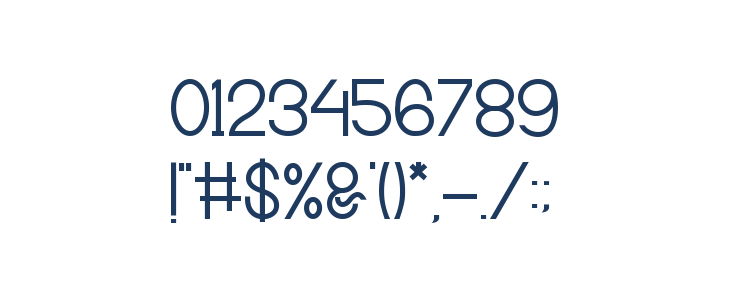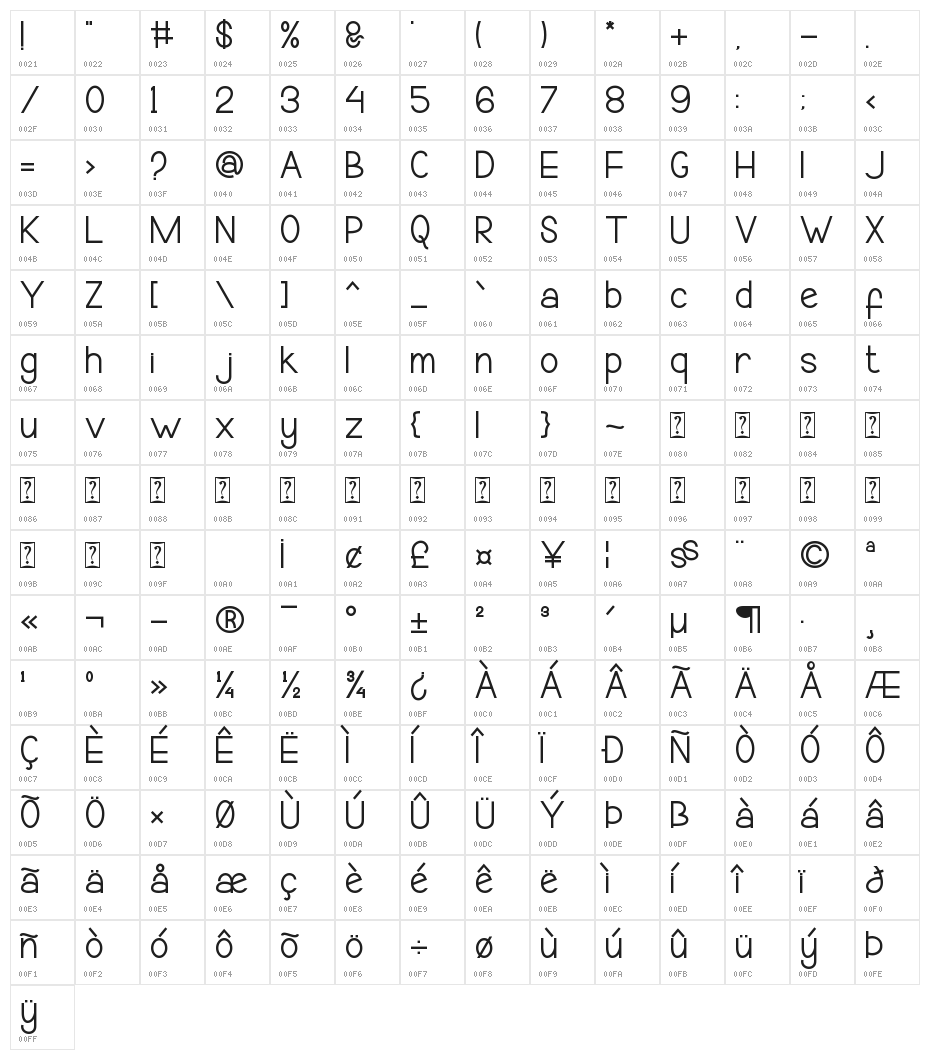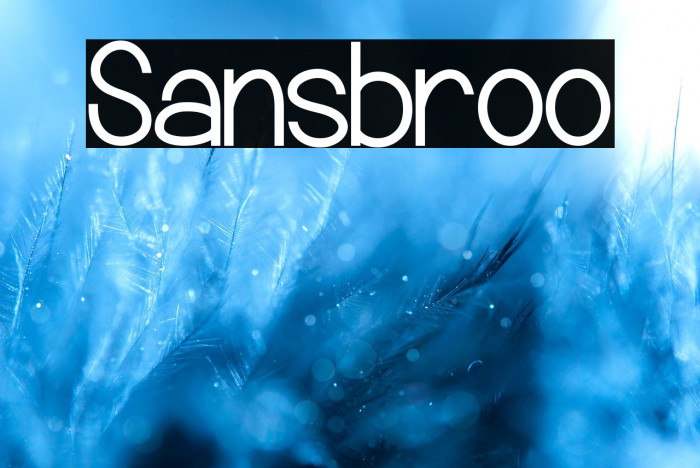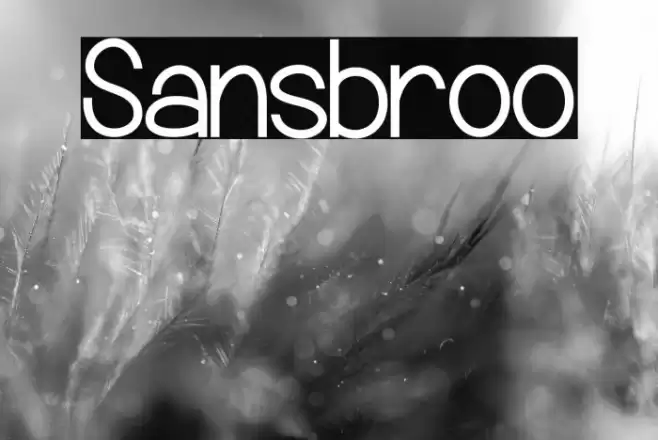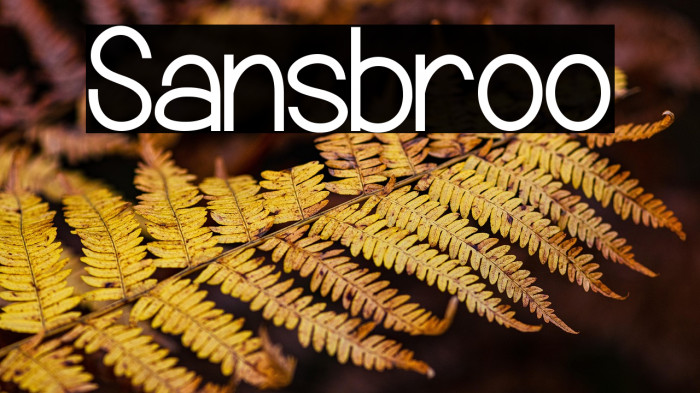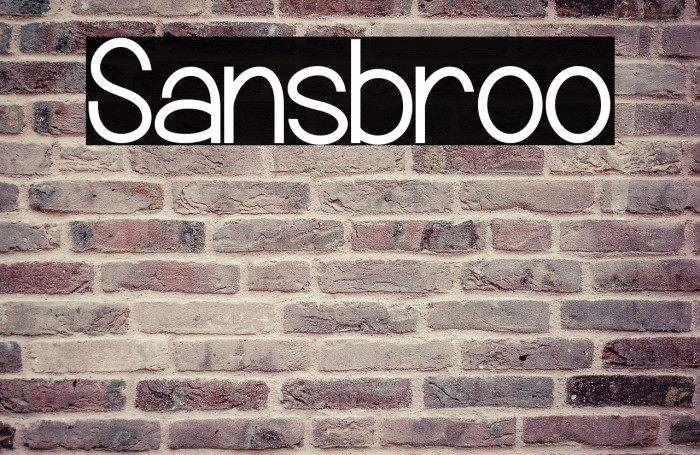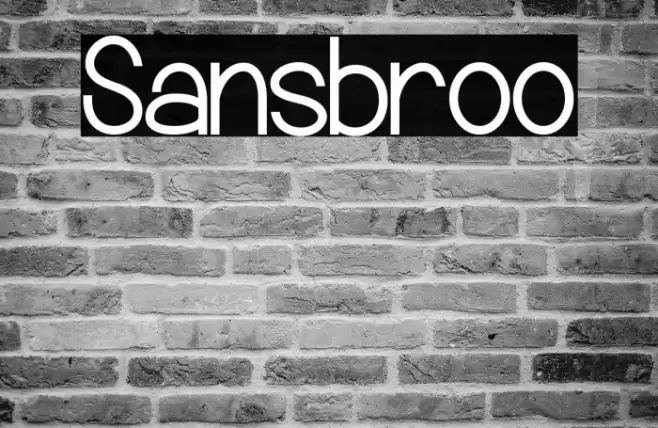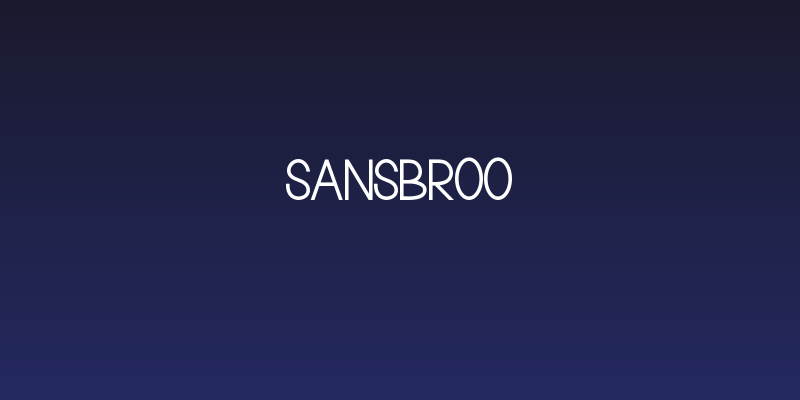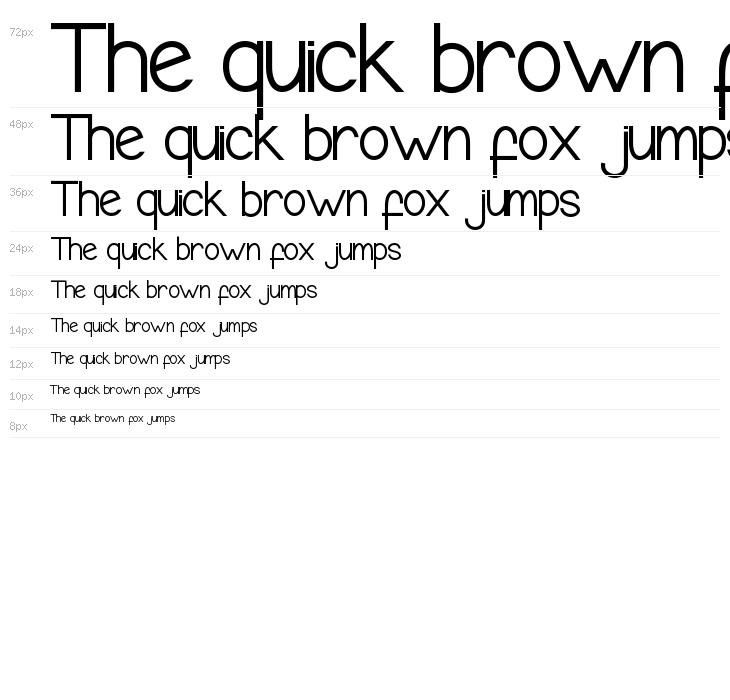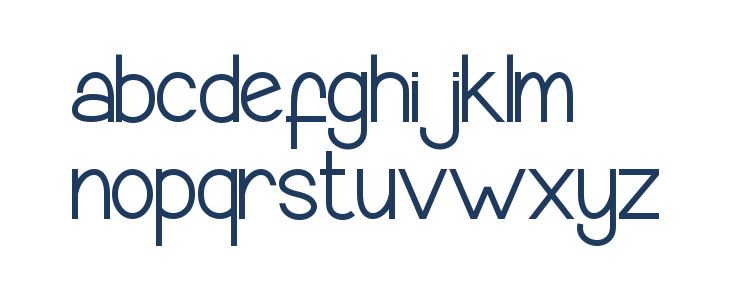
Sansbroo Font
Sansbroo Description
This font features a clean and modern sans-serif design with a geometric structure. The characters are uniform in width, providing a balanced and harmonious appearance. The uppercase letters are bold and assertive, while the lowercase letters maintain a consistent height, contributing to the font's readability. The numerals are clear and distinct, making them suitable for various applications. Special characters are well-integrated, ensuring versatility in design projects. The overall style is contemporary, making it ideal for digital and print media.